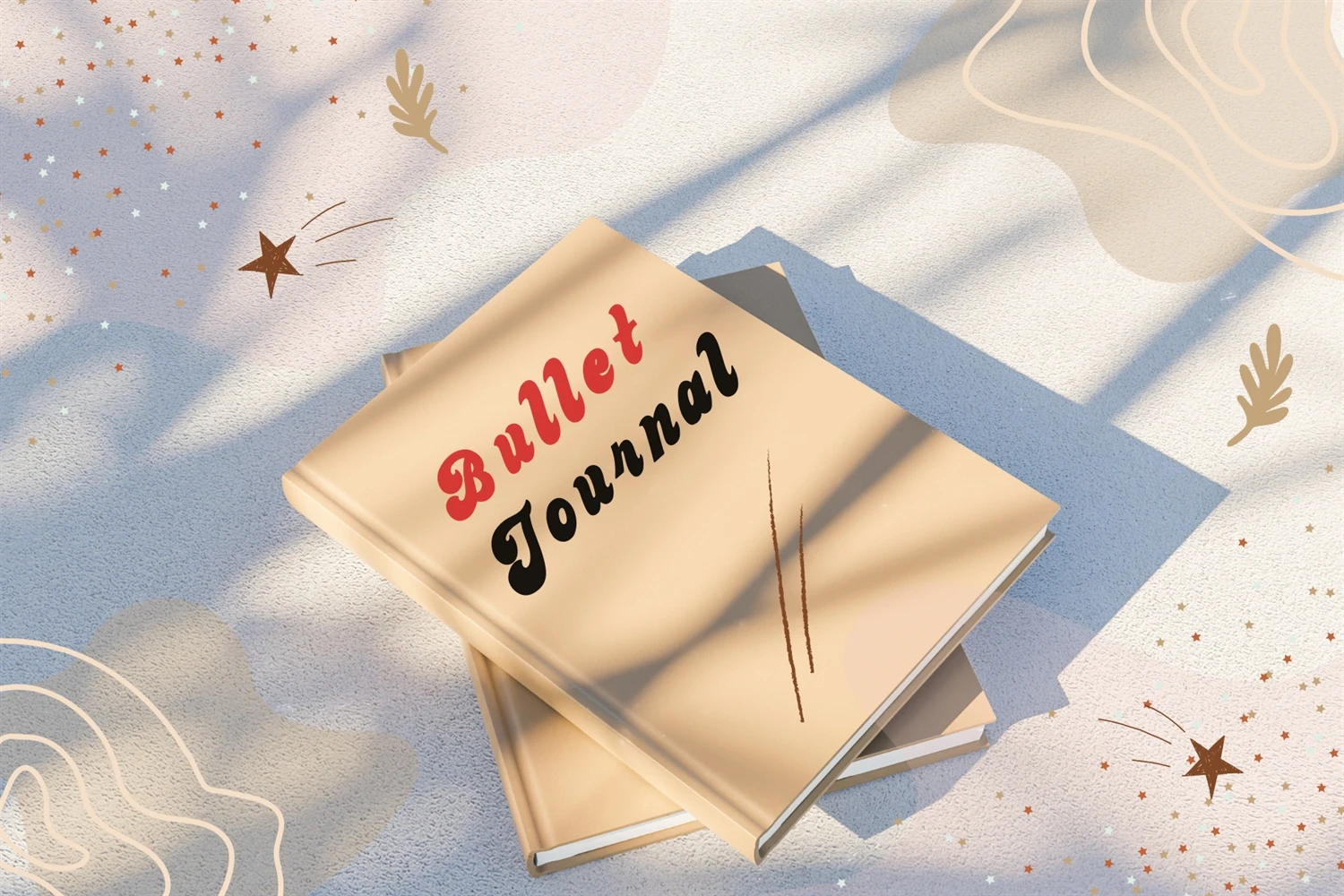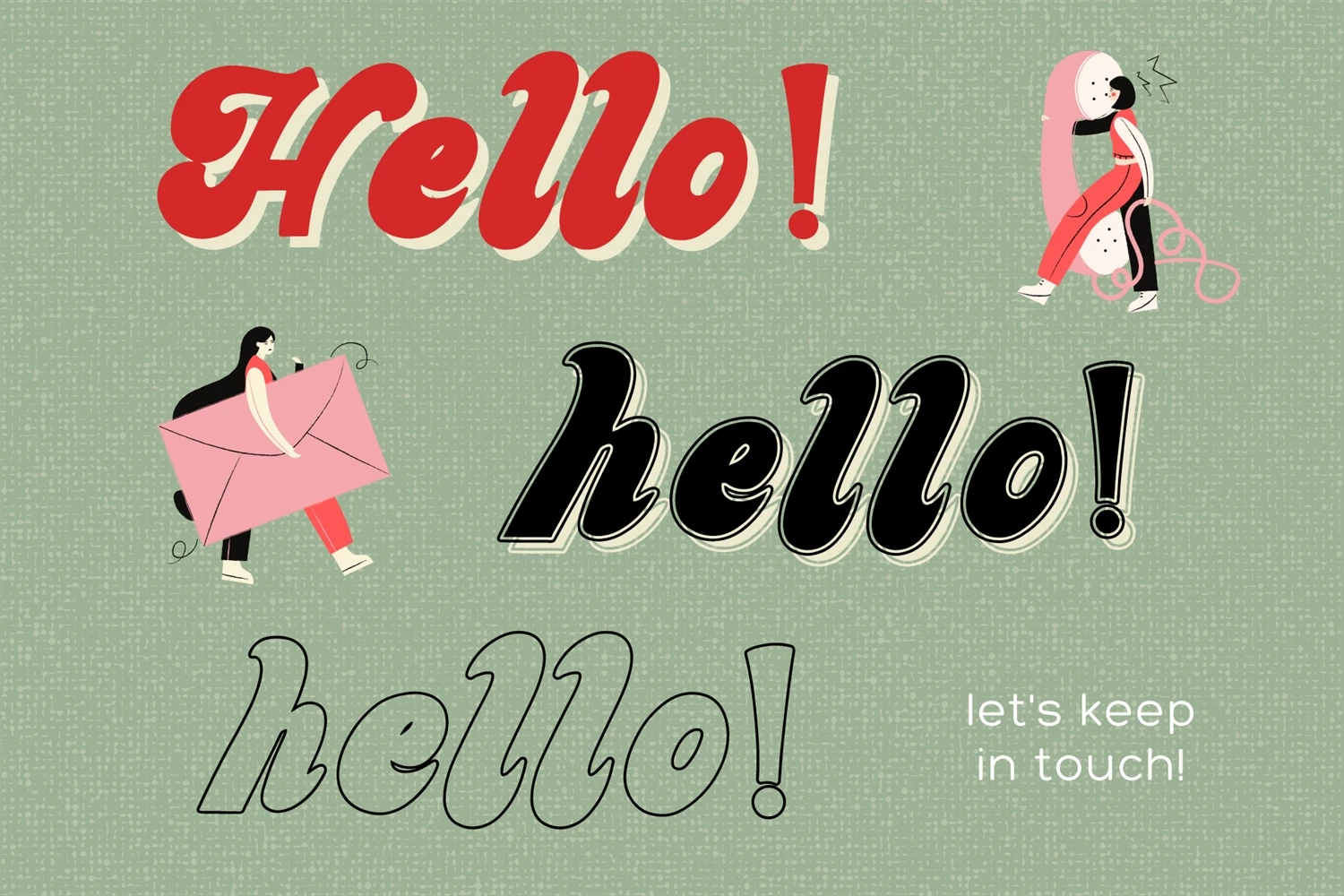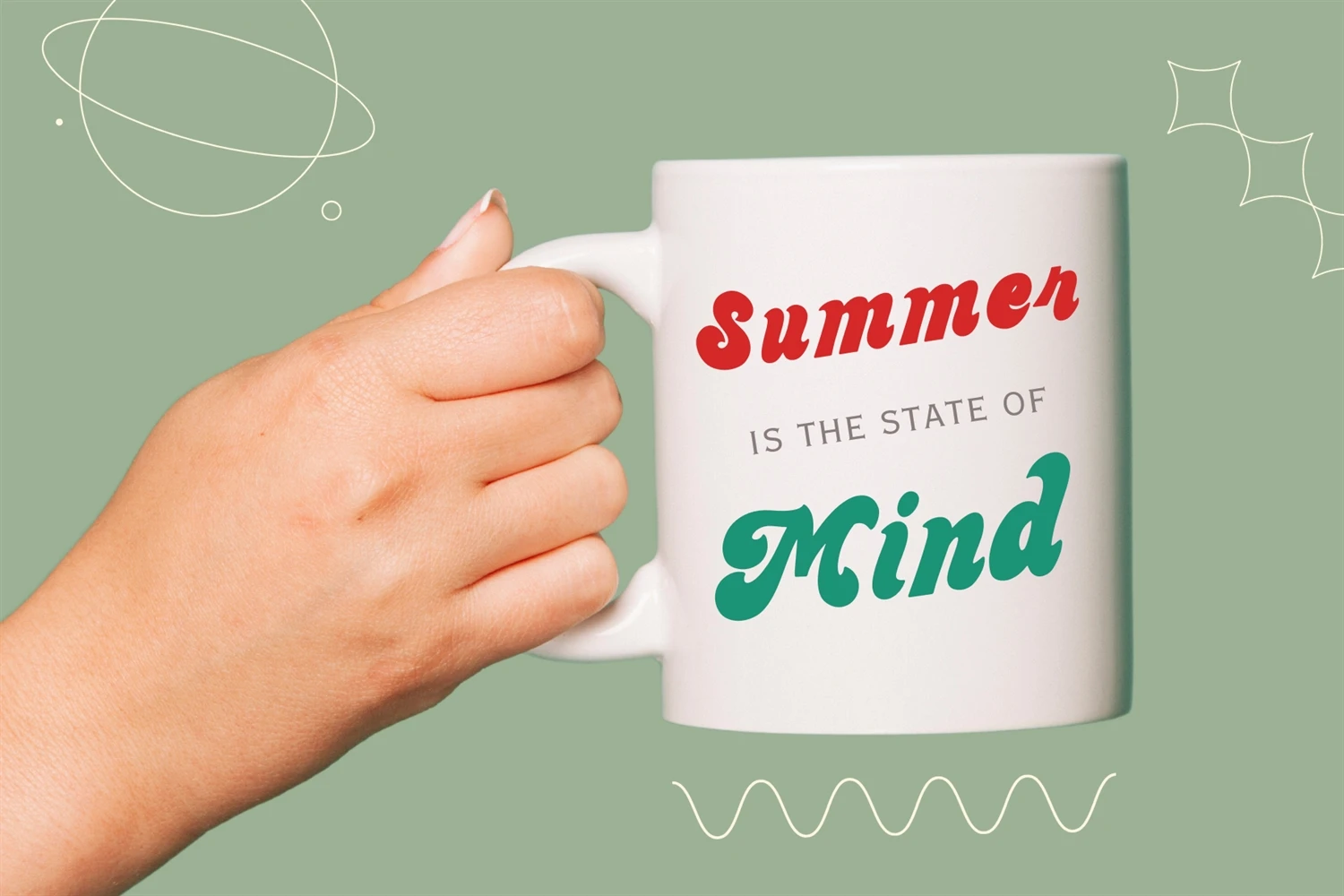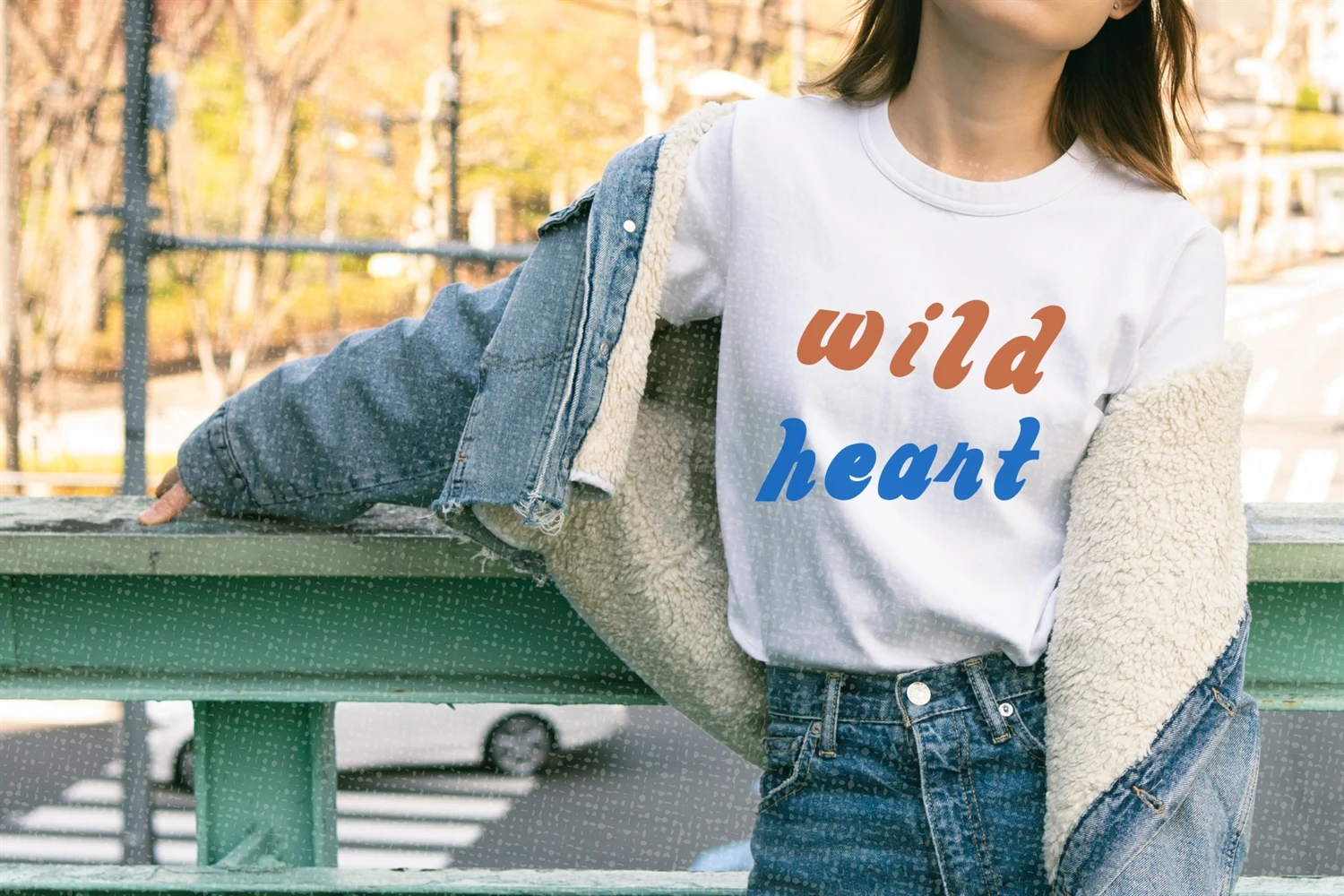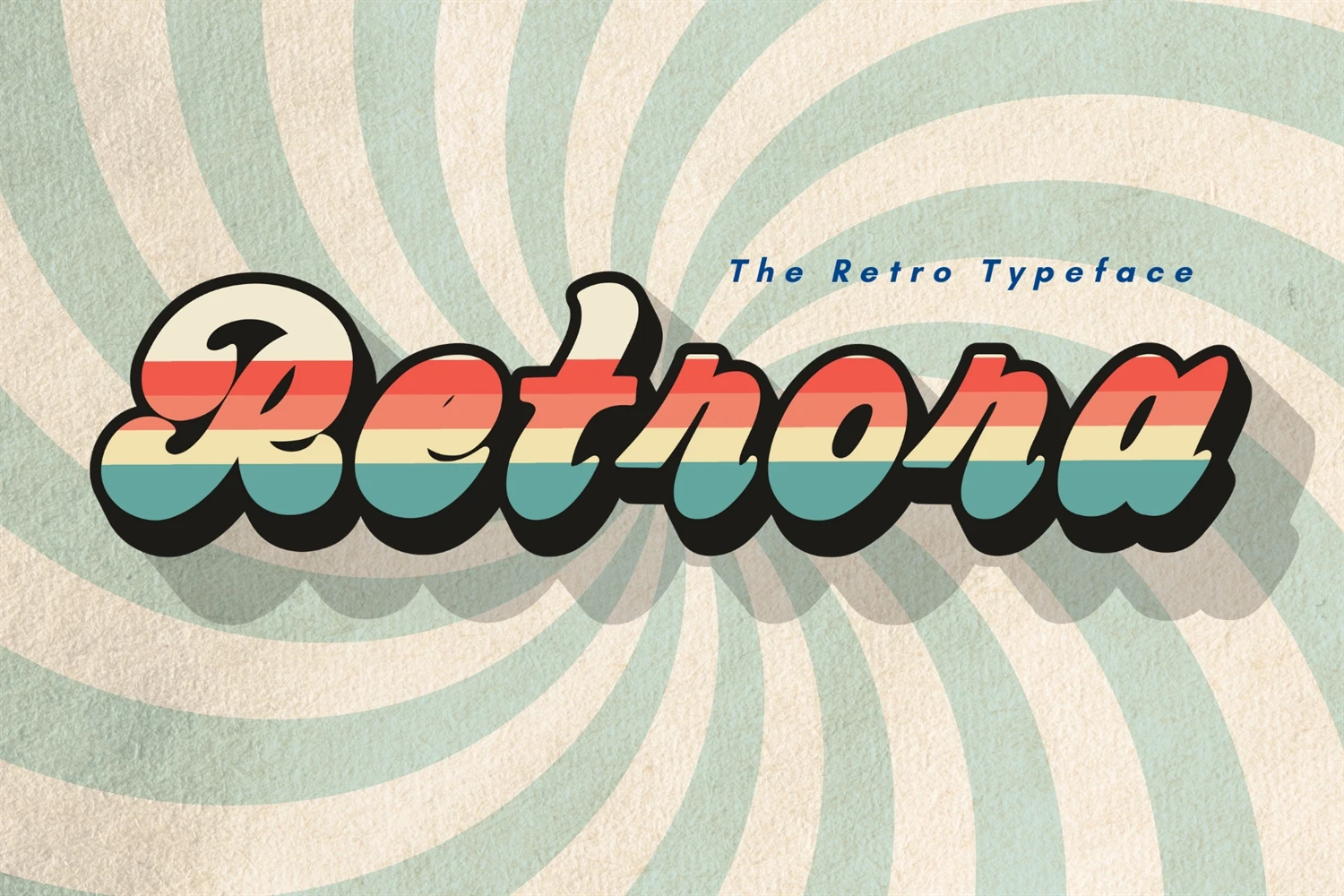
Retrora is a retro, vintage-style display font. Use it to add that special retro touch to any design idea! It can be used for versatile projects. This font is perfect for those looking to create a strong visual identity with a contemporary edge, making it a standout choice for modern design projects.